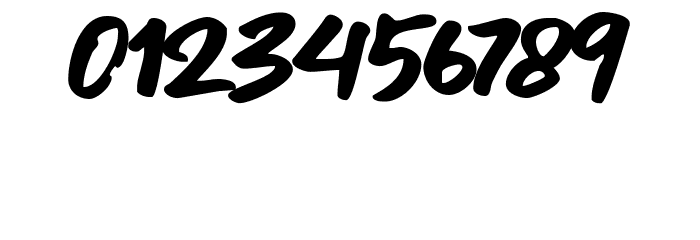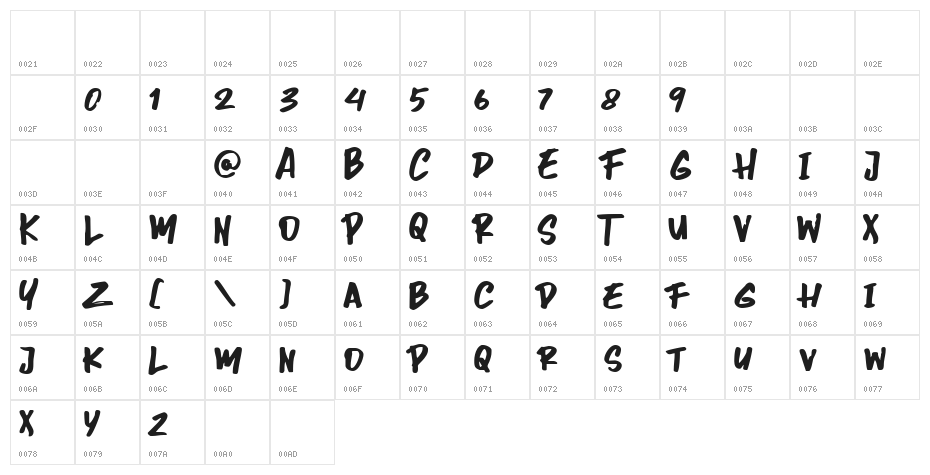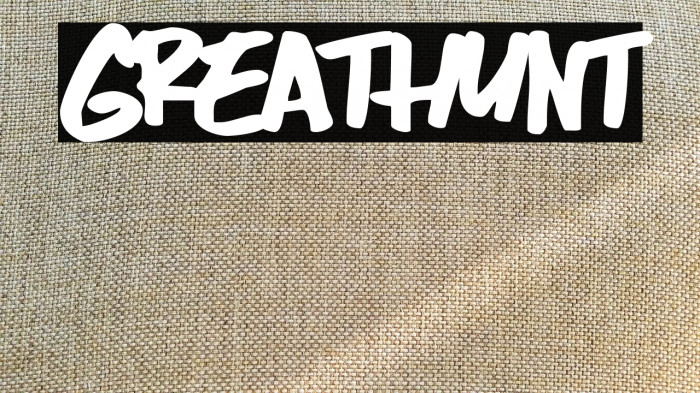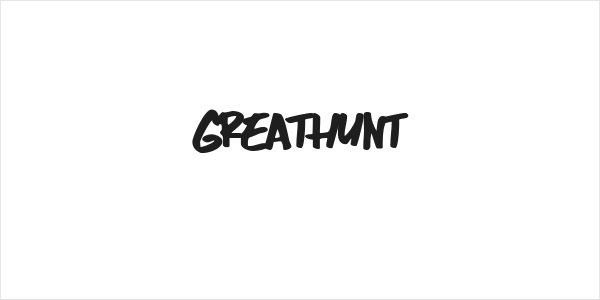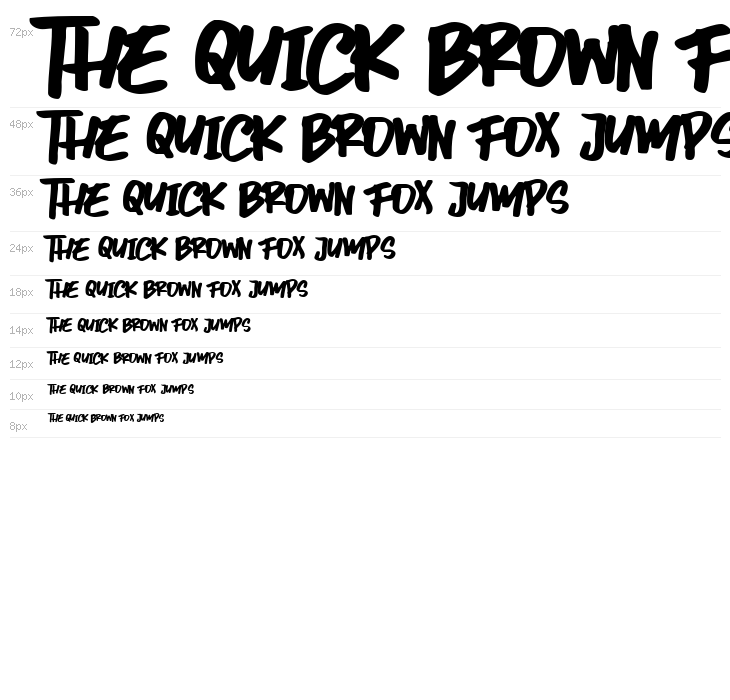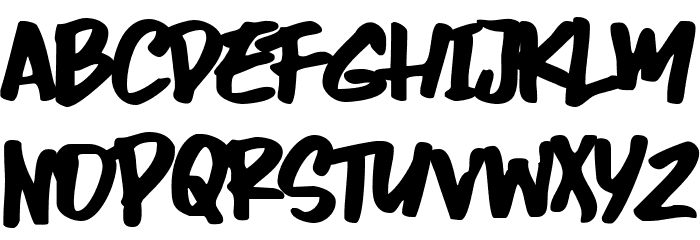
Greathunt Font
Greathunt Description
This font features a bold, energetic style with a handwritten appearance. The characters are thick and slightly slanted, giving a dynamic and lively feel. The strokes are consistent in weight, providing a uniform look across all letters and numbers. The uppercase and lowercase letters maintain a cohesive style, with rounded edges and a playful, casual vibe. The numbers are equally bold and maintain the same handwritten aesthetic. This font is ideal for projects that require a personal touch or a sense of informality.
| Overall Style | Casual, Energetic |
| Proposed Projects | Perfect for branding, posters, social media graphics, and any project needing a personal, informal touch. |